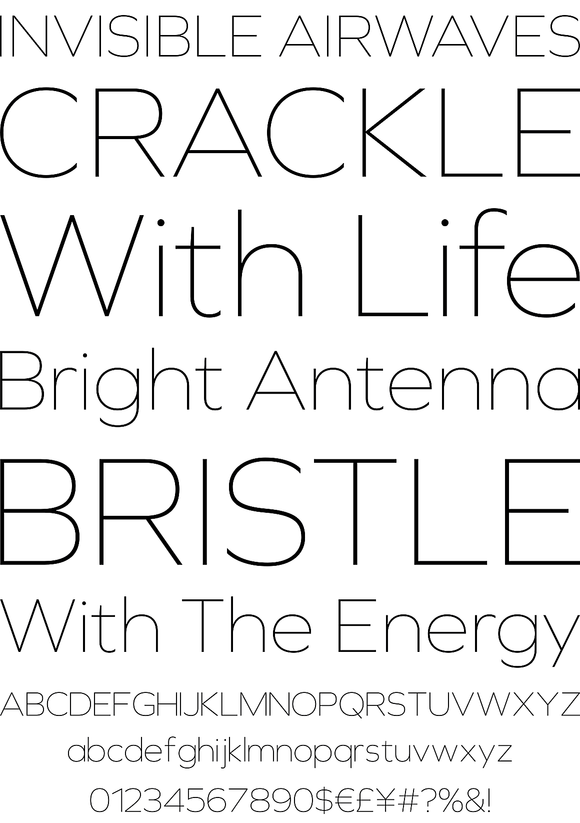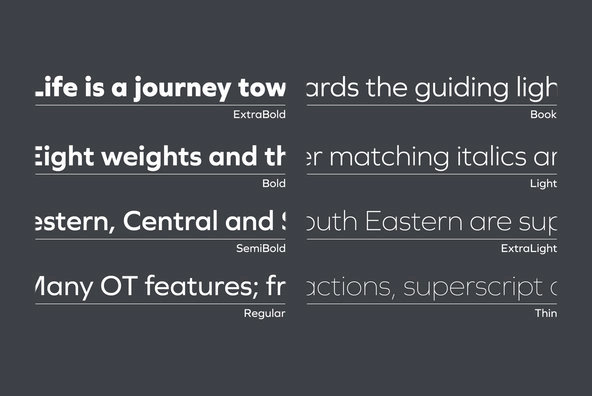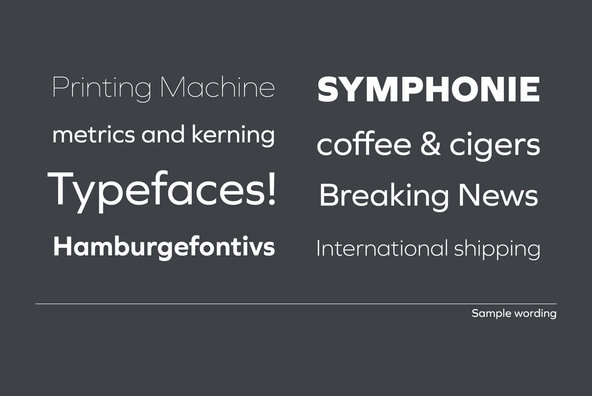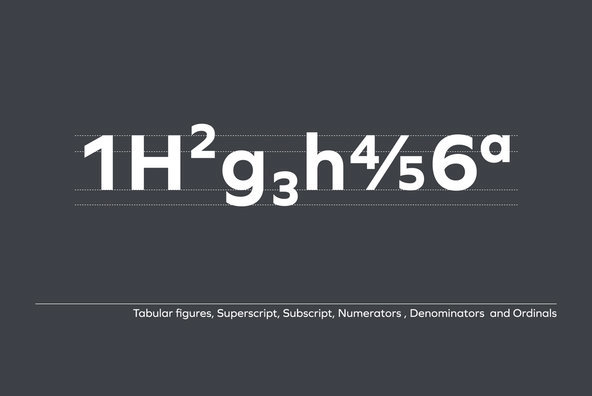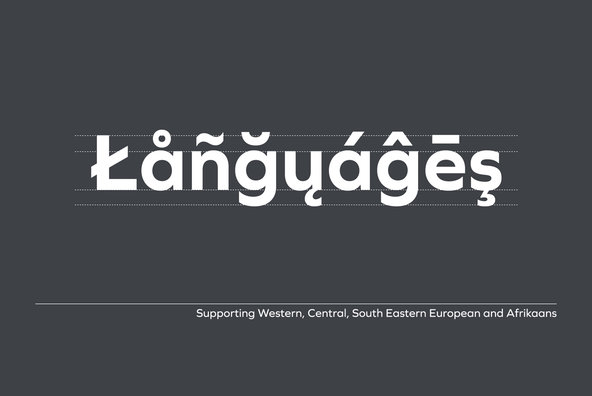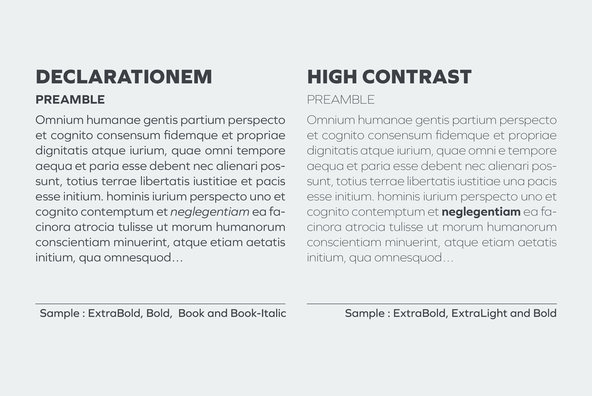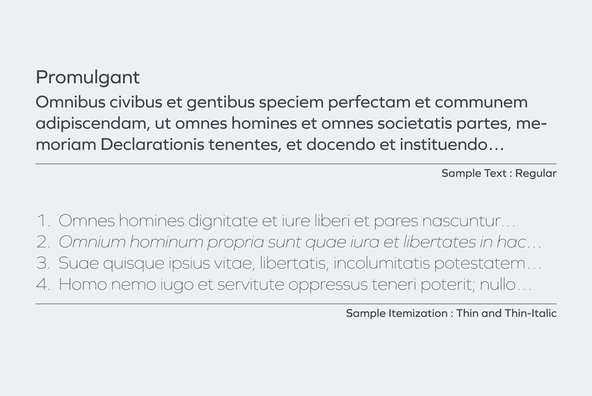
Graphie Font
Graphie is a modern geometric sans-serif family designed by Ryoichi Tsunekawa and the whole family consists of 16 style: eight weights from Thin to ExtraBold and their matching Italics. The range of styles provides flexibility for title, headline and body text. And the clear-cut-corner, vibrant straight lines and large x-heights give them legibility, readability and keenness.
The basic skeleton of their letterform was designed geometrically and optically corrected. The sophisticated geometric design gives them universality, neutrality and sense of unity and make it possible to be used across a wide range of applications in all medias, all purposes.
Graphie supports almost all European languages: Western, Central, South Eastern Europeans and afrikaans. And superior figures, inferior figures, denominators, numerators and fraction can be accessed by using OpenType features.
In the early 2000's, Ryoichi Tsunekawa was fascinated by the relations between modernist design and Bauhaus style while studying architecture at Nagoya University. He eventually changed his focus to type-design, establishing an extensive font collection that is now available on YouWorkForThem.The desig...